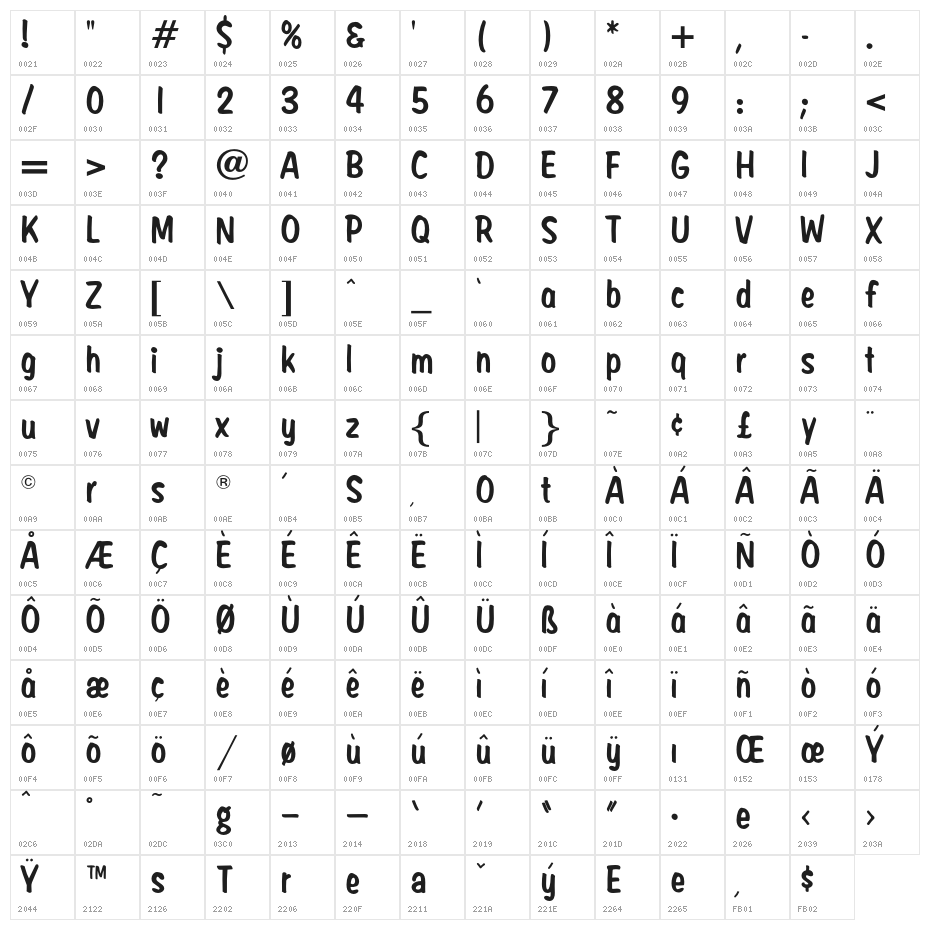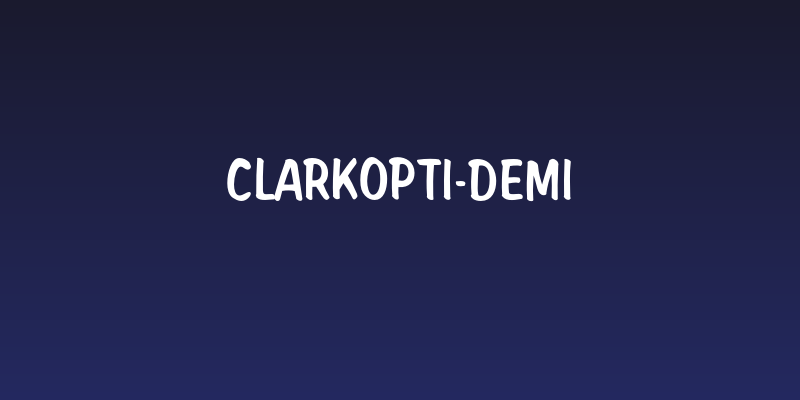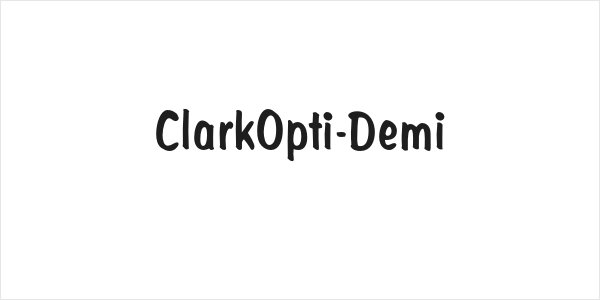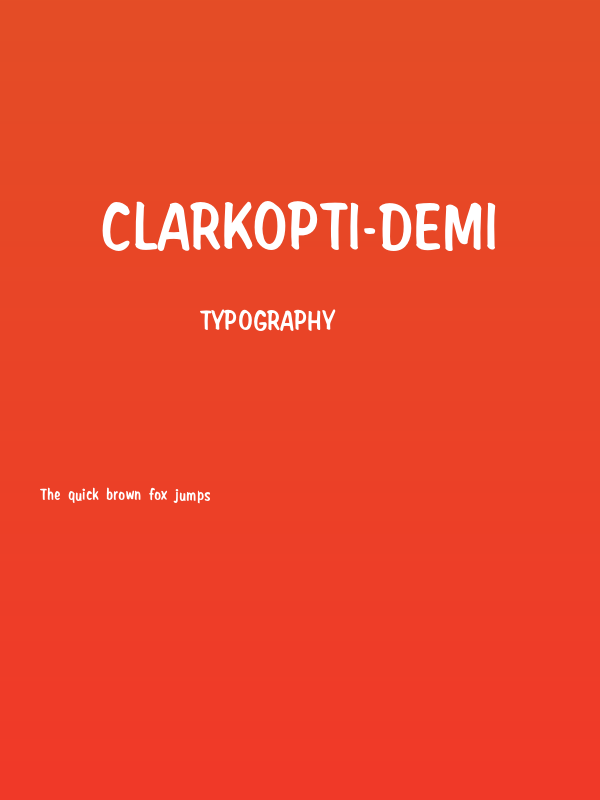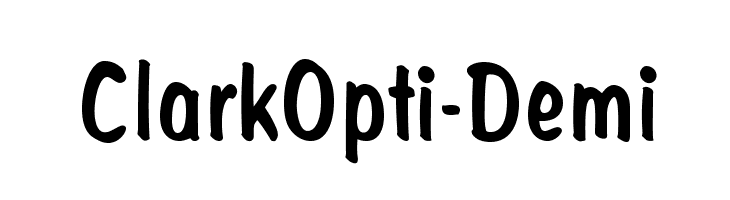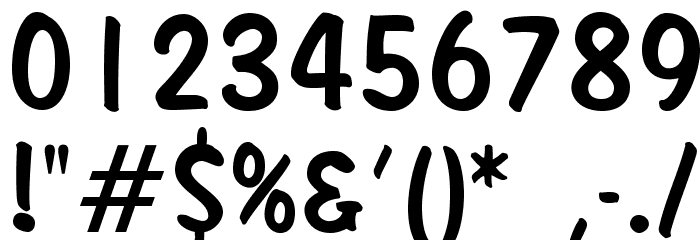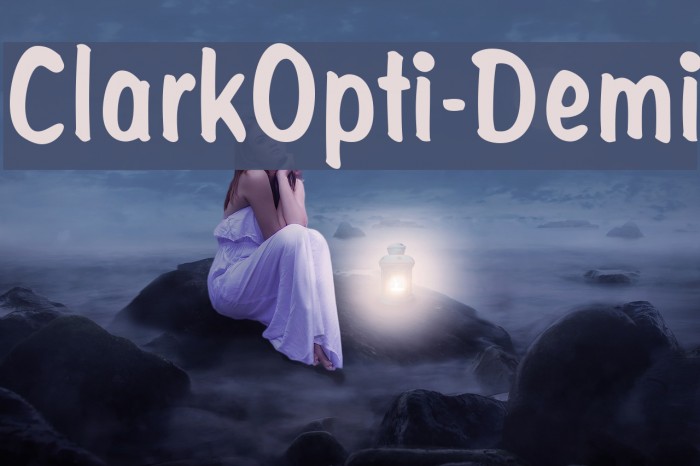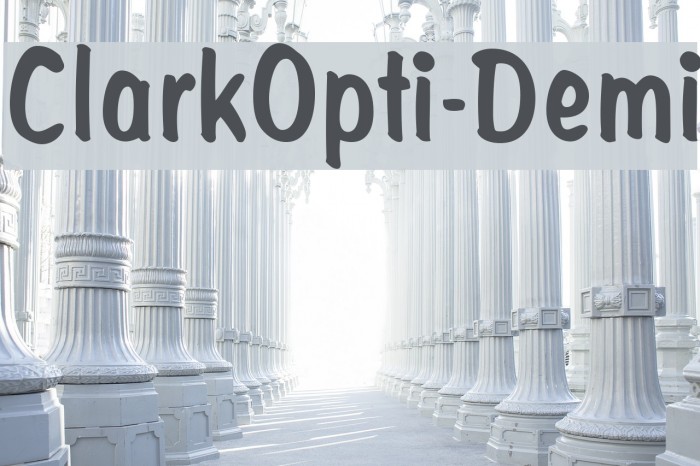
ClarkOpti-Demi Font
| Estilo geral | Casual, Playful |
| Caso de uso | Headlines, Logos, Informal Text |
| Projetos propostos | Great for children's books, greeting cards, playful branding, and casual invitations. |